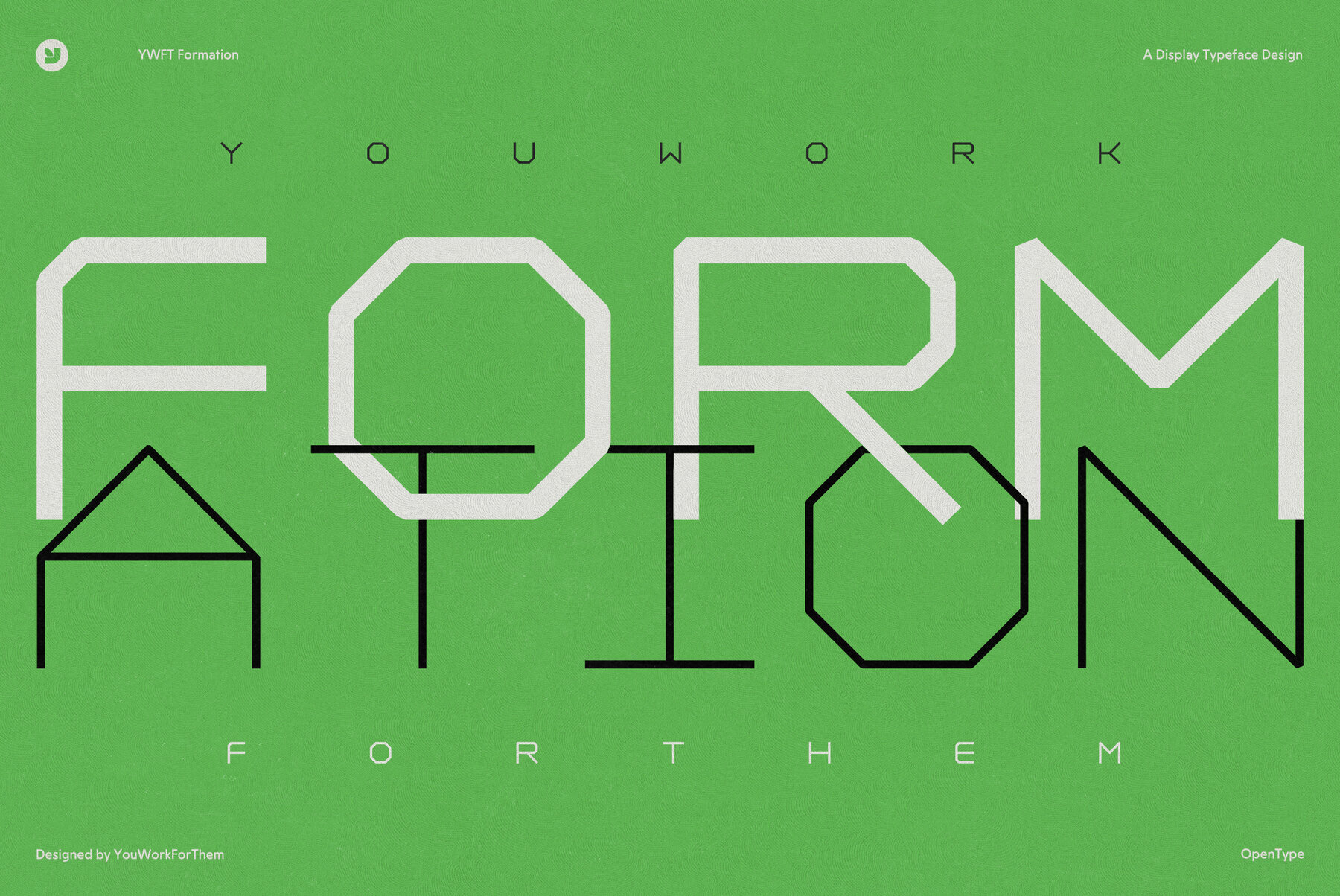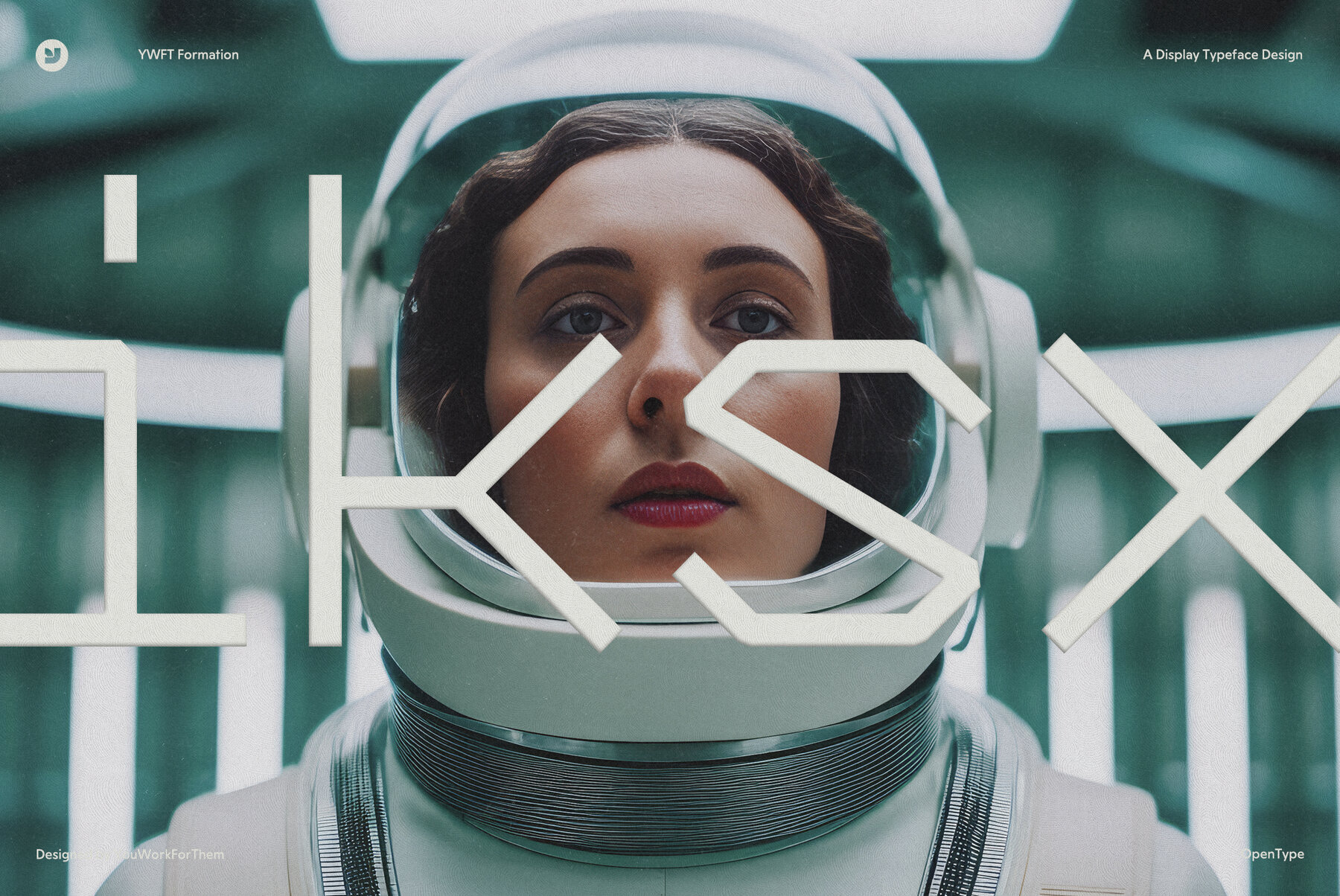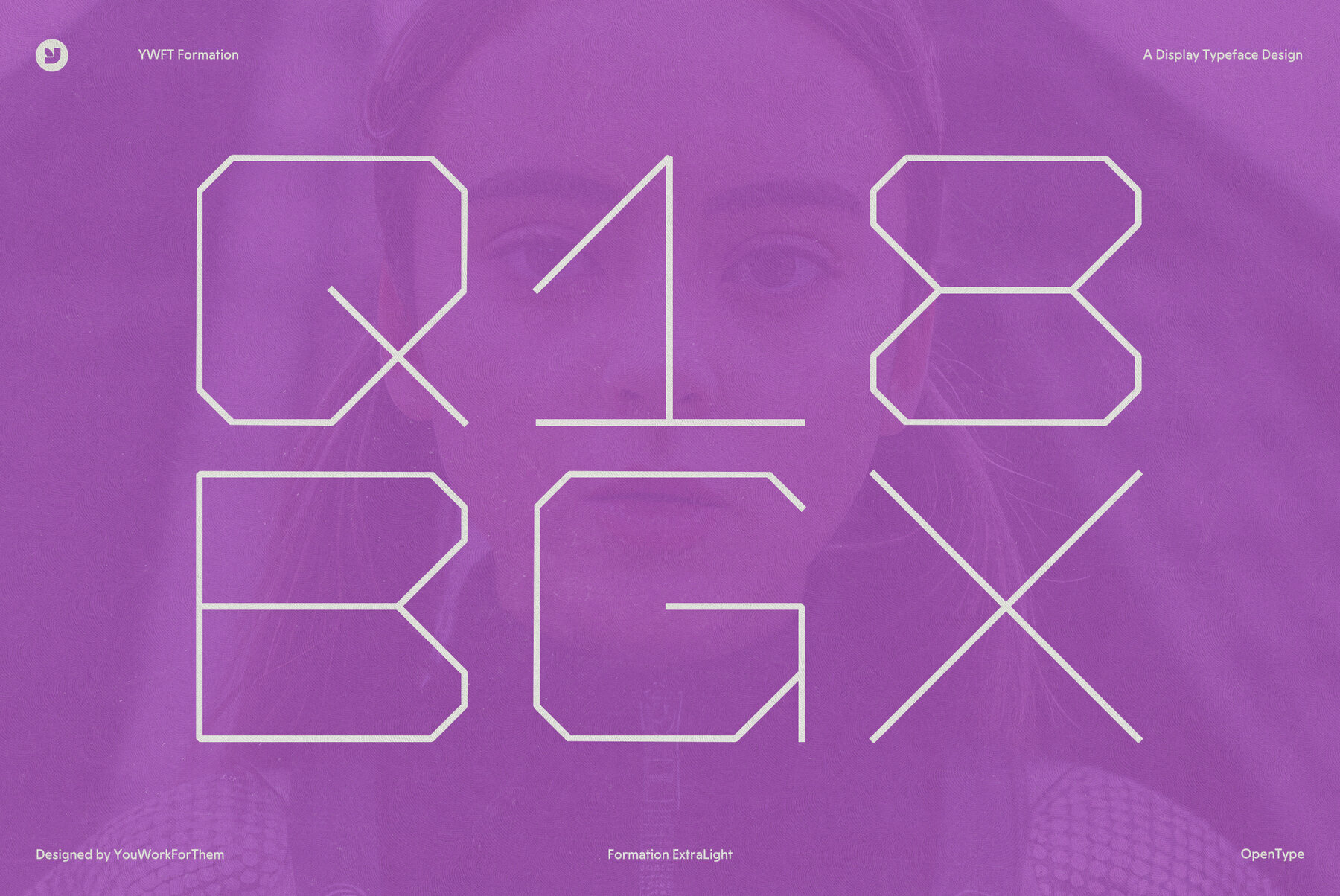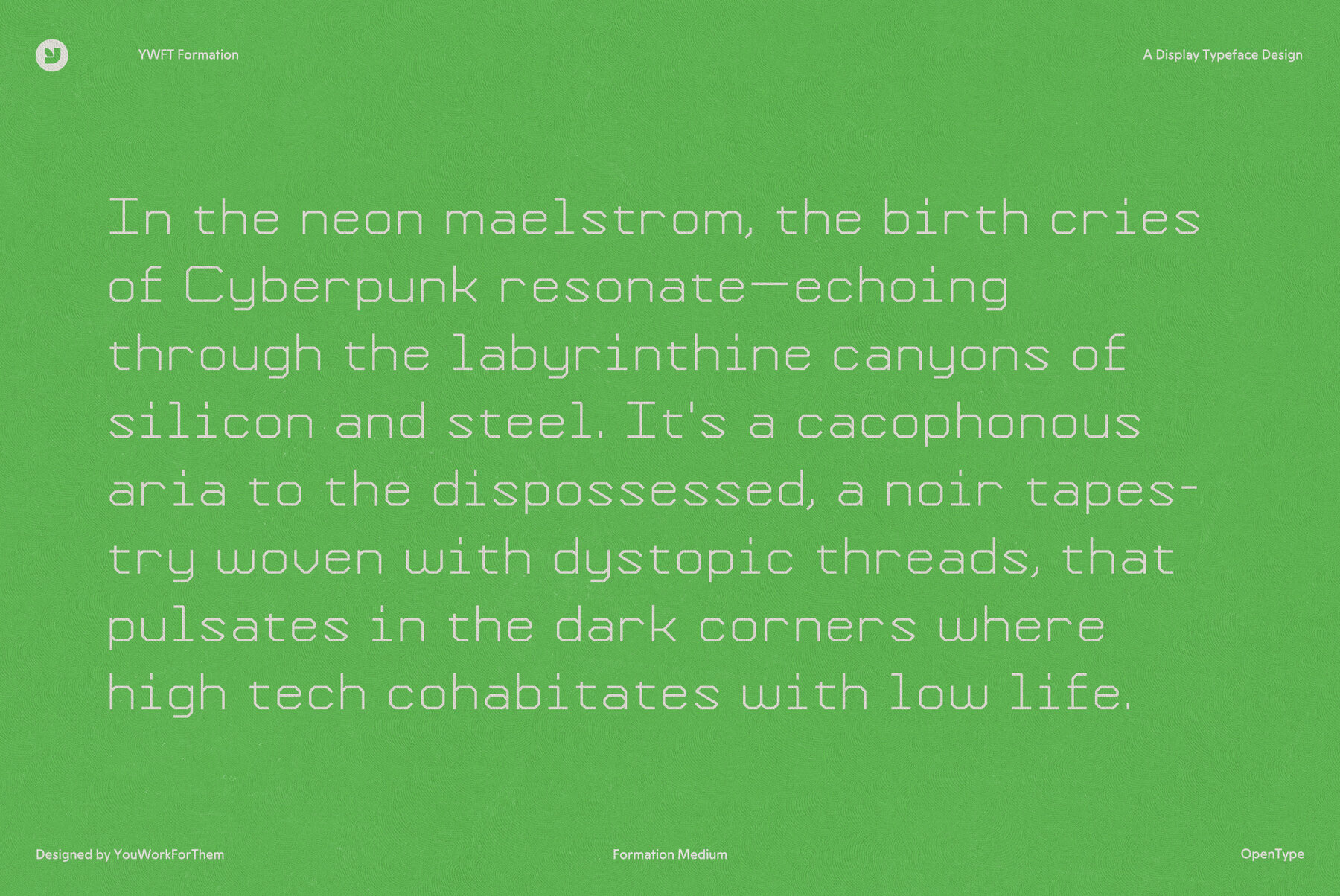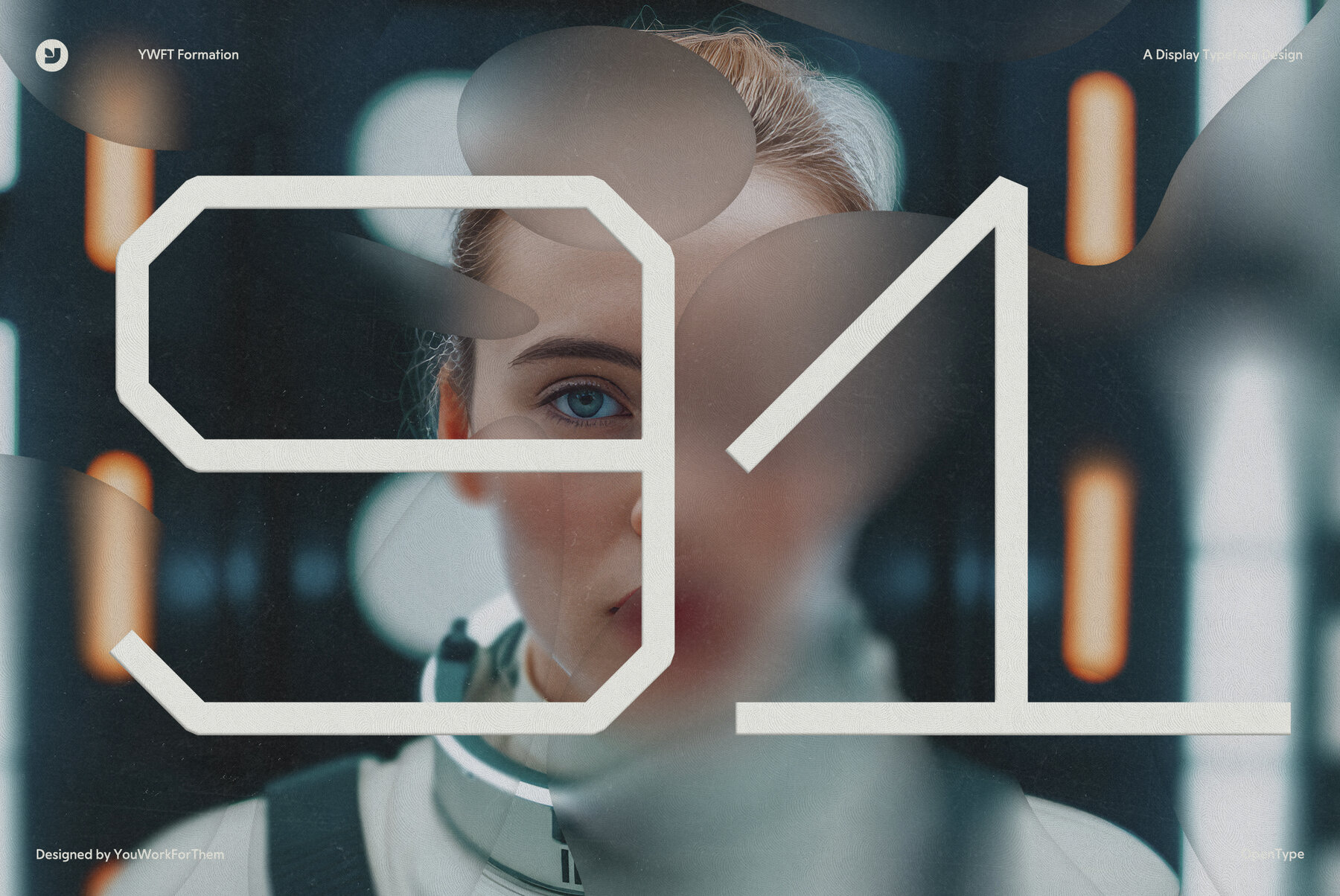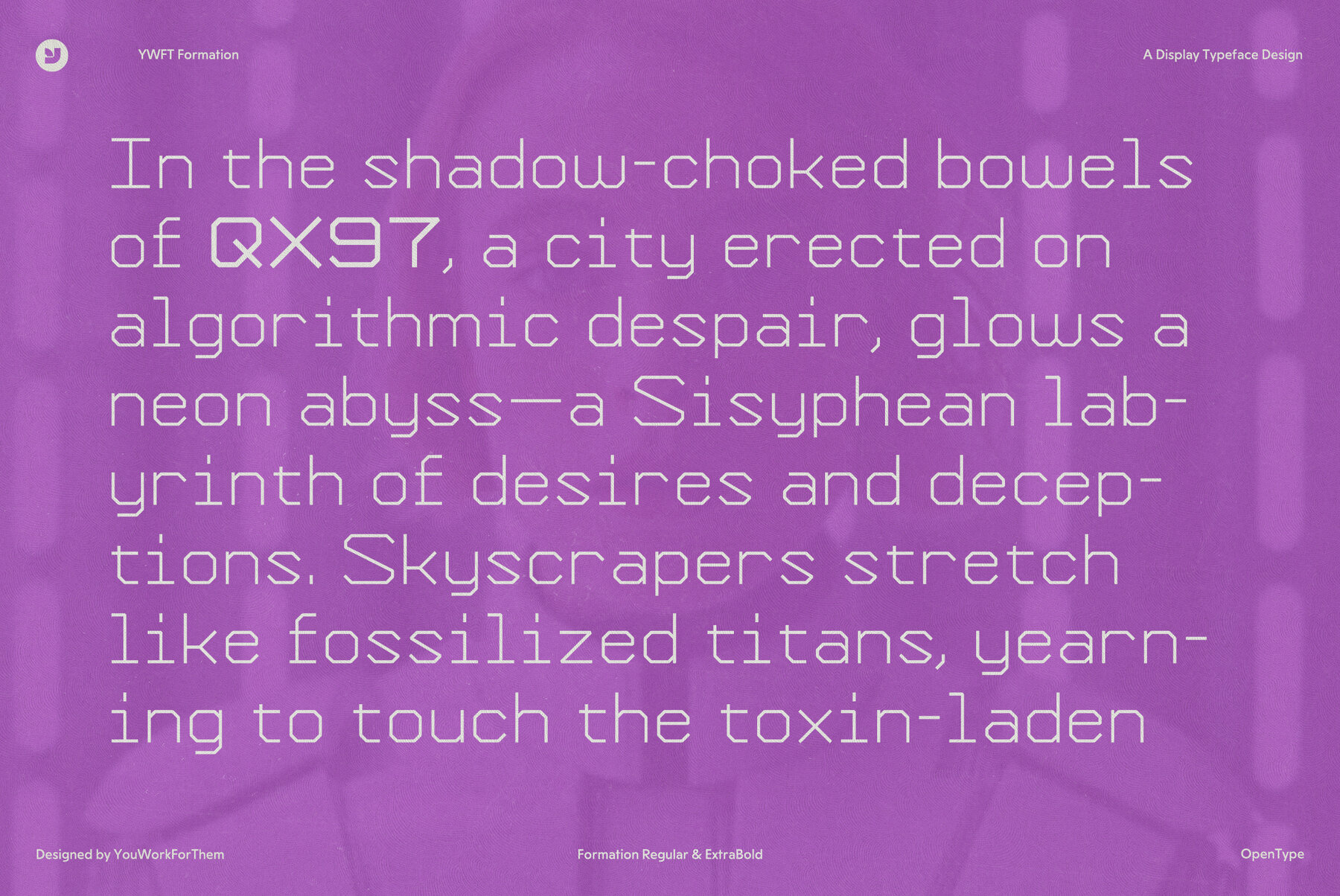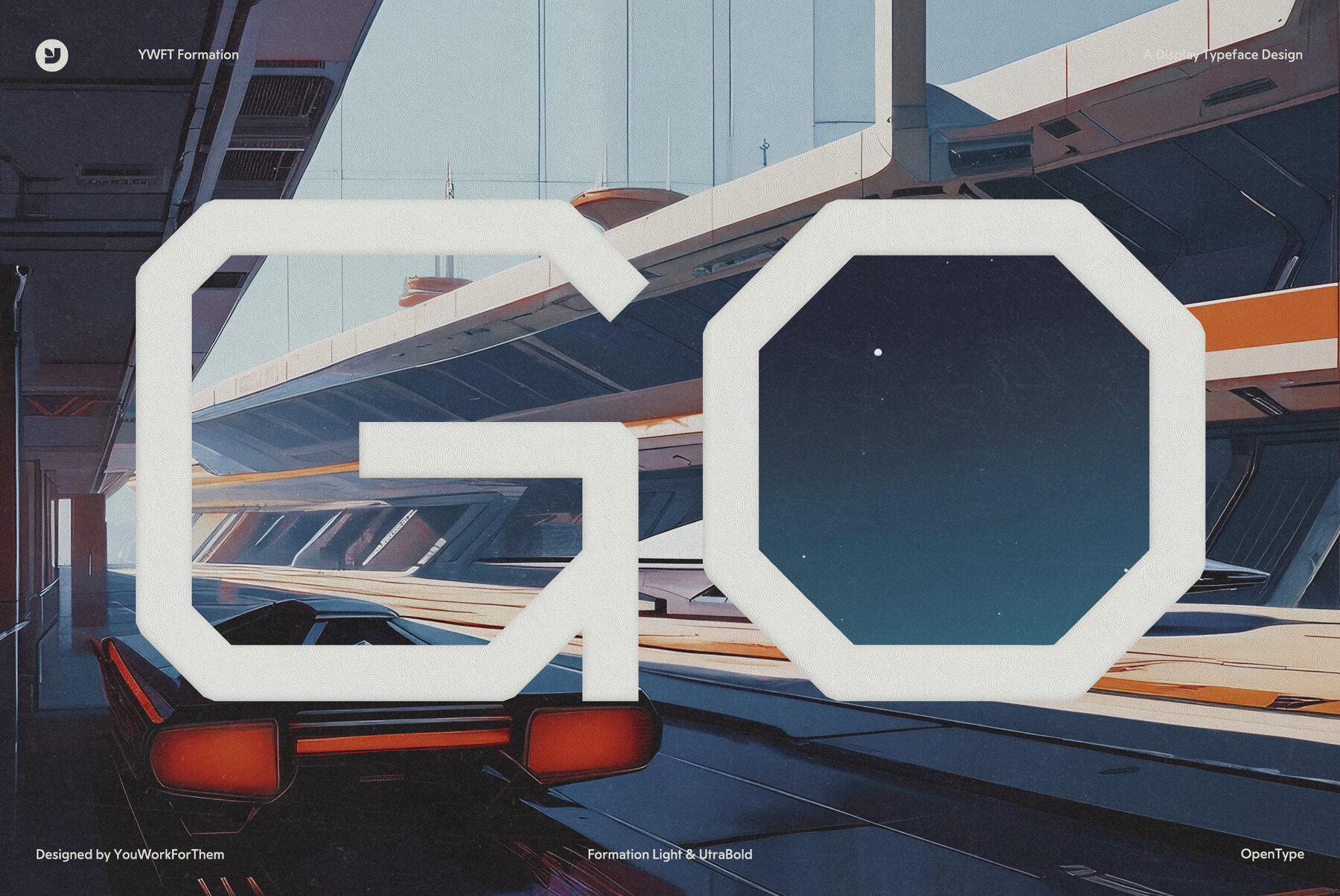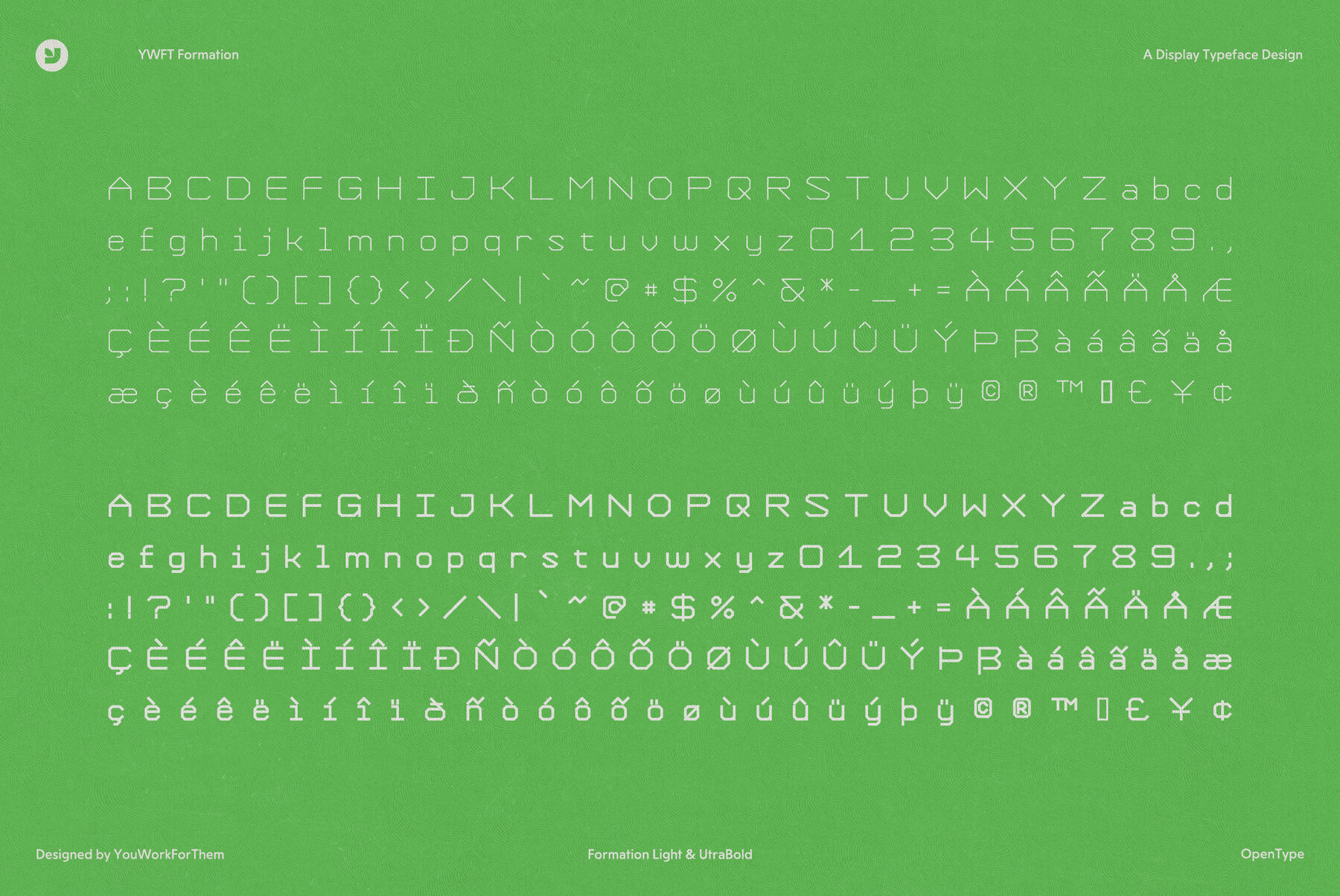
YWFT Formation Font
Reach for the pinnacle of graphic design with YWFT Formation, a sophisticated typeface designed to exhilarate creatives and captivate audiences. Exclusively crafted by renowned design agency YouWorkForThem, YWFT Formation brings forth an authentic blend of inventive typography and graphic design, finding its inspiration in the masterpieces of Ed Ruscha and the structural elegance of AutoCAD. This innovative typeface design is not only appealing to the eye, but also reinforces the connection between simplicity and sophistication, evoking a unique sensation in every letter and character. Tailored to capture the essence of artistry, YWFT Formation is genuinely an extensive typeface design that empowers graphic designers and marketing firms to deliver astounding work, enabling them to stand out in this competitive industry. Product Features:Unleash Your Creativity with YWFT Formation: A Typeface Design by YouWorkForThem